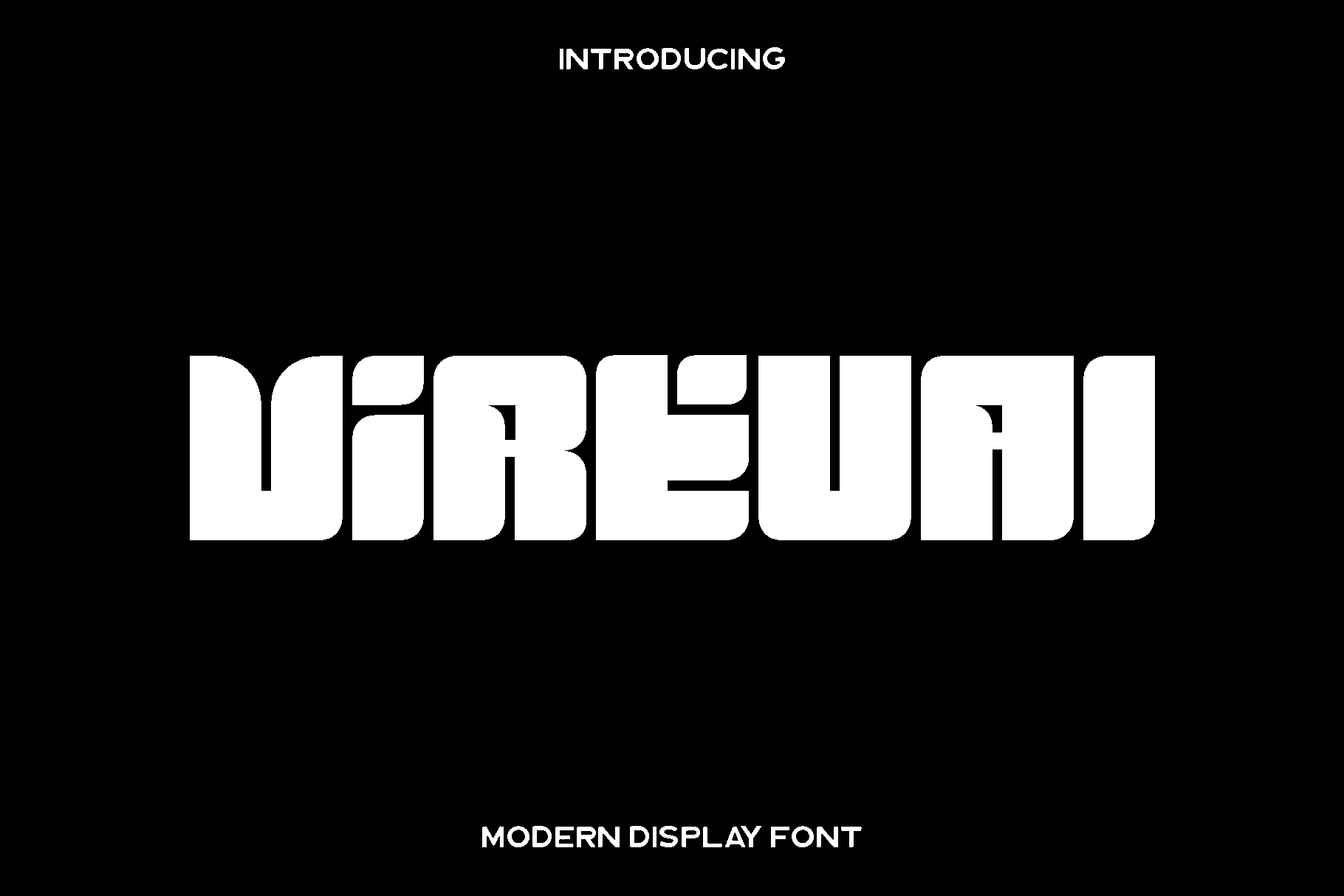
Virtual - Modern Display Font
Virtual is a modern display font created to bring clarity, confidence, and a contemporary edge to your designs. Designed with clean all caps letterforms and balanced proportions, Virtual delivers a strong visual voice that feels bold yet refined. Its style is inspired by modern editorial layouts and digital aesthetics, making it a reliable choice for designers who want their typography to look sharp, professional, and impactful.
This font shines across a wide range of creative projects. Virtual works beautifully for books, magazines, logos, branding systems, photography overlays, quotes, blog headers, posters, and advertisements. Its all caps structure gives headlines and titles a confident presence, while its thoughtful spacing keeps text readable and visually appealing in both print and digital formats.
Virtual feels modern, versatile, and expressive. The included ligatures add a subtle touch of sophistication, allowing your typography to flow naturally and stand out with character. With full numbers, punctuation, and multilingual support, Virtual is designed to perform consistently across global design projects. Whether you are creating editorial content or bold promotional visuals, Virtual helps your work communicate with strength, style, and clarity.